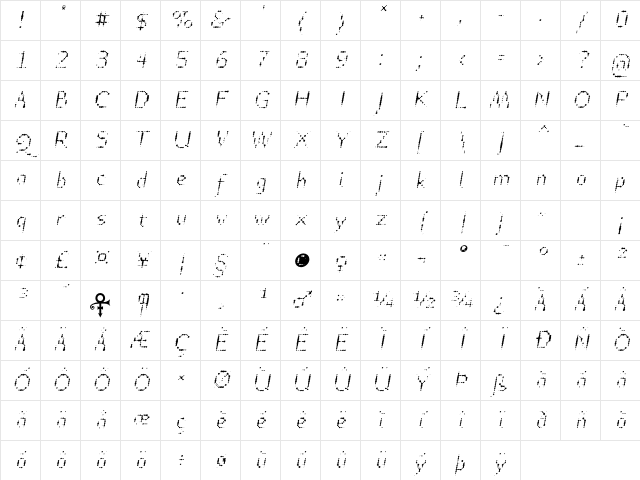
TTRheostatFahrenheit LiteItalic
Style: LiteItalic
Complete TTRheostatFahrenheit LiteItalic glyph index. Displaying only characters natively supported by TTRheostatFahrenheit LiteItalic font.
Design Context for TTRheostatFahrenheit
TTRheostatFahrenheit is a composed and adaptable typeface that performs quietly and consistently across a wide range of design contexts. The slanted form adds forward momentum and visual energy.
Pro Tip: Use TTRheostatFahrenheit for emphasis, pull quotes, and subheadings where its slanted energy can add rhythm to the layout.